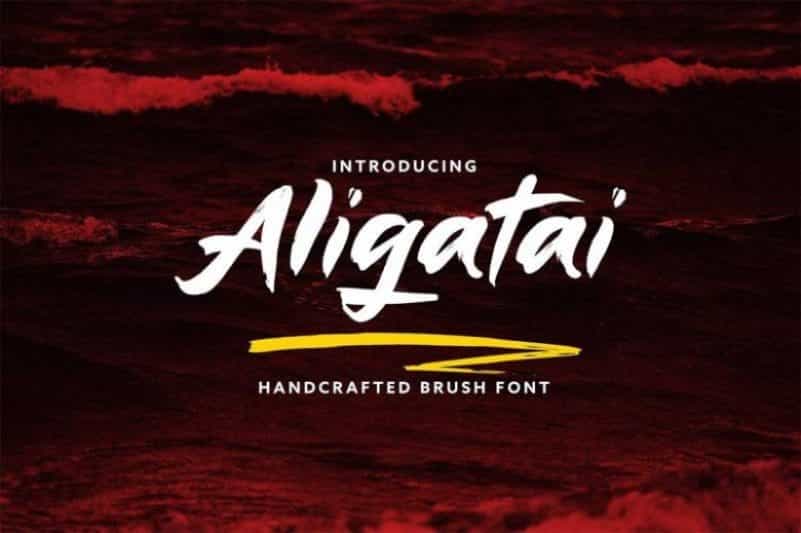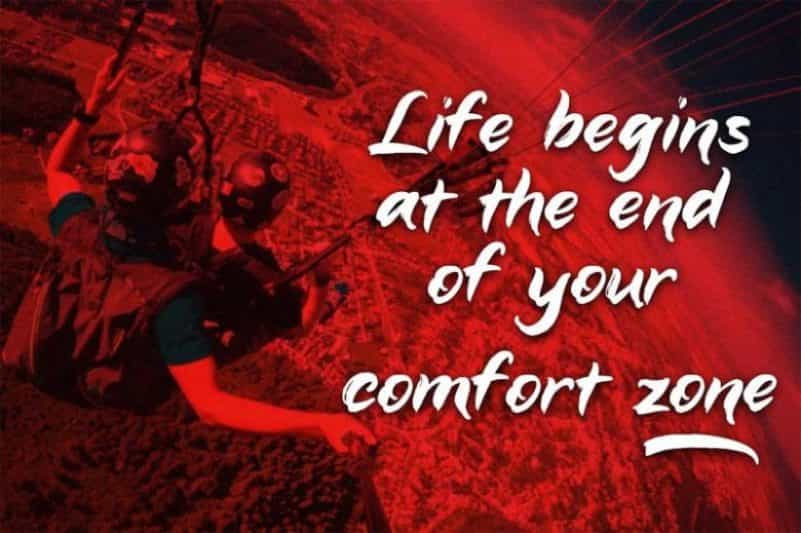
Aligatai Font is a beautiful script font, this font Is perfect for logo, invitation, stationery, wedding designs, social media posts, advertisements, product packaging, product designs, labels, photography, watermarks, special events, or anything. It will look perfect on Logotypes, Posters, Digital Lettering Arts, Clean Design, Branding Design, Sign, Merchandise and Social Media Posts. This font include Uppercase, Lowercase, Number, Symbol, Punctuation, and it support PUA.